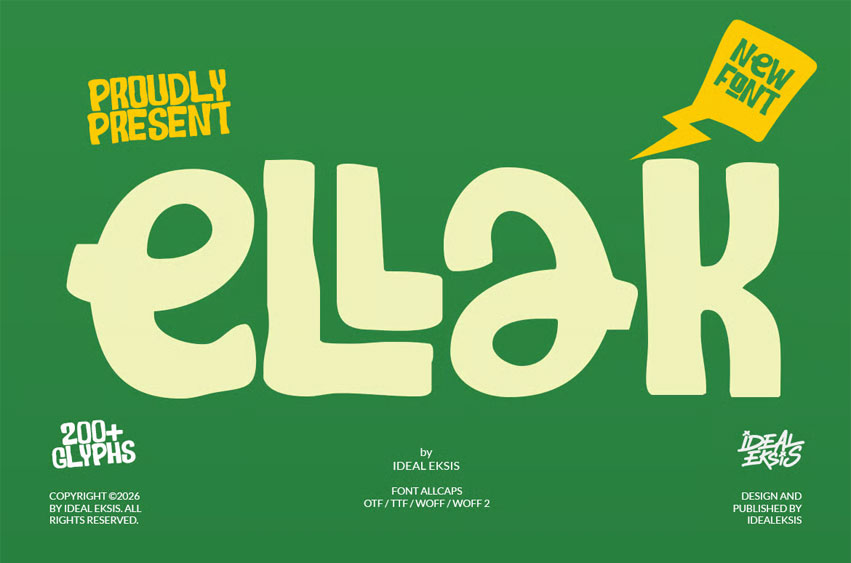
Ellak Font
Ellak Font is a high-impact display typeface characterized by its heavy weight and playful, irregular geometry.
• Uppercase (All Caps)
• Ligaturs
• Numerals
PERFECT FOR
• Bakery and café branding
• Food and beverage logos
• Restaurant menus and signage
• Coffee shop and donut shop designs
• Food packaging and labels
• Social media food promotions
• Kitchen-themed posters and prints
• Culinary blogs and recipe graphics